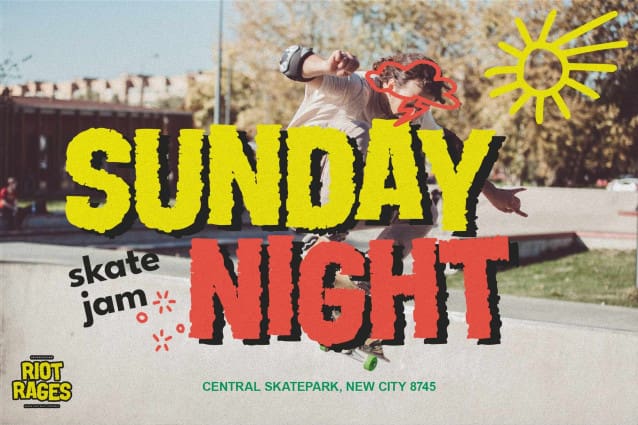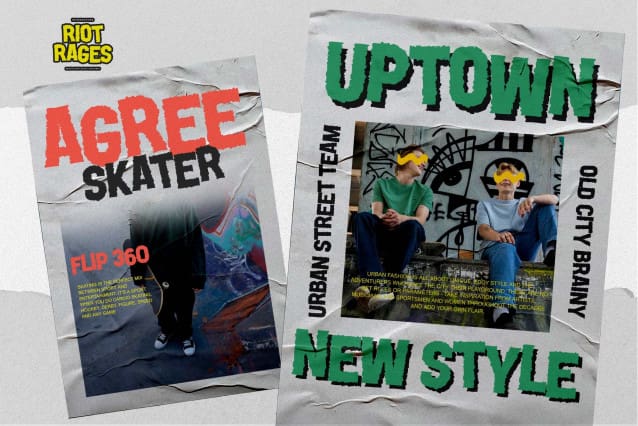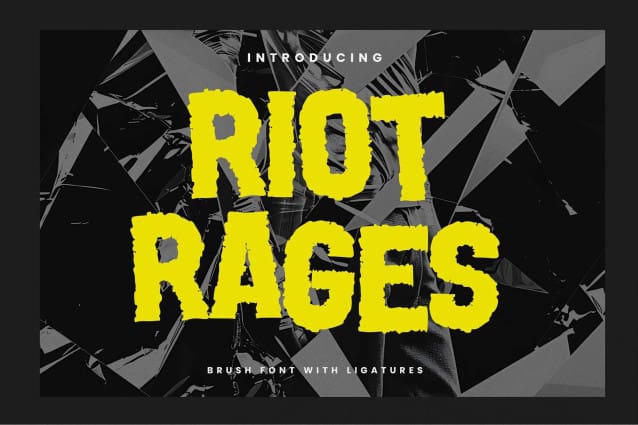
Riot Rages Font
Riot Rages Font – Rough Sans Display Font, a modern, rough font crafted with a casual and quick touch. Perfect for adding a unique, textured, and strong characteristic to your designs.